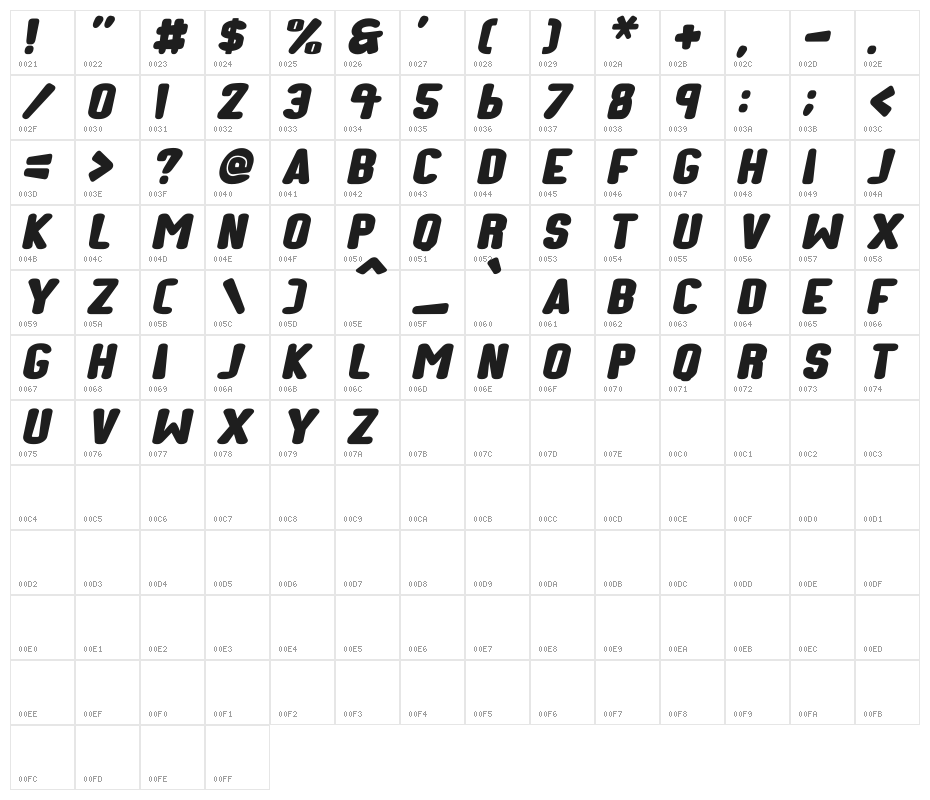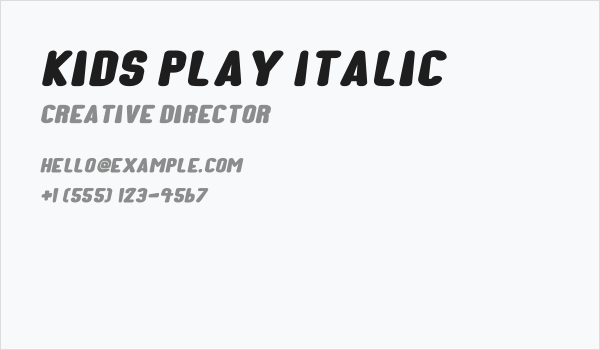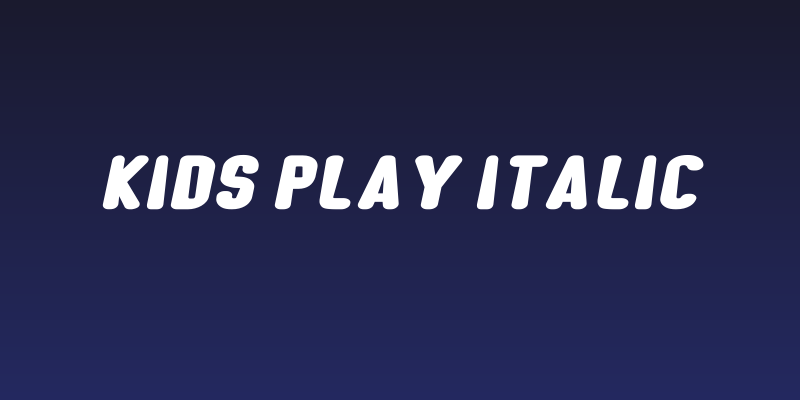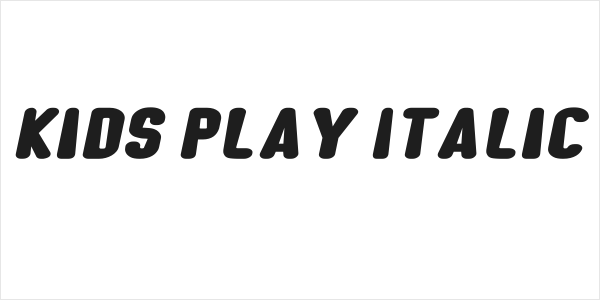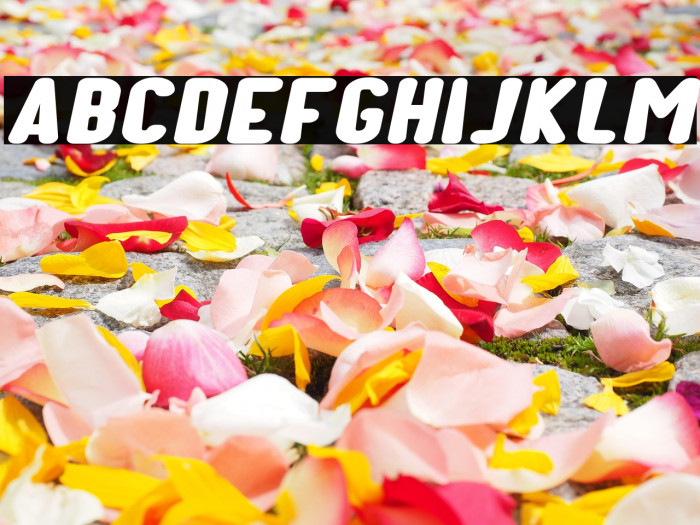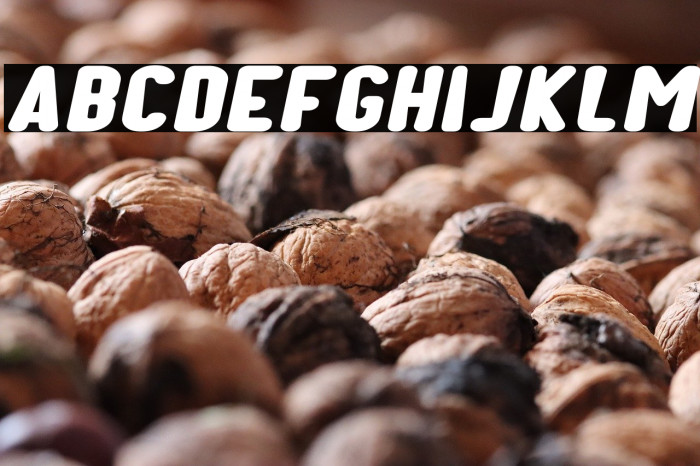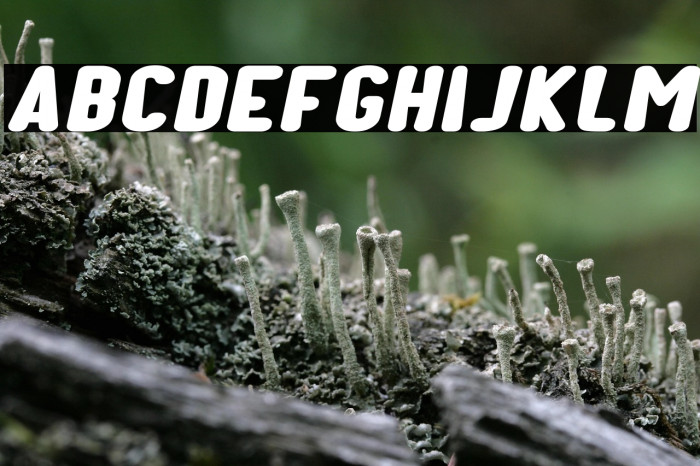
Kids Play Italic Font
Kids Play Italic Description
This playful and bold font features rounded edges and a slightly italicized style, giving it a dynamic and energetic appearance. The characters are thick and robust, with a consistent stroke width that maintains readability while adding a touch of fun. The font's rounded corners soften its overall look, making it approachable and friendly. It includes a full set of uppercase and lowercase letters, numbers, and a variety of special characters, ensuring versatility for different design needs. The font's style is reminiscent of children's handwriting, making it ideal for projects aimed at younger audiences or those seeking a whimsical touch.
| Proposed Projects | Ideal for children's books, toy packaging, playful branding, and educational materials. |